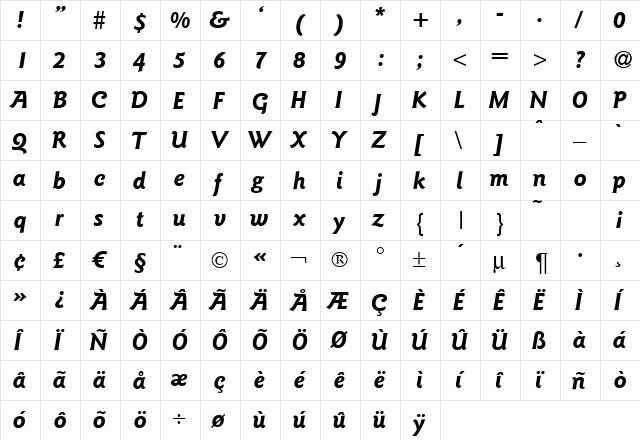
GoudyElegantTwo BoldItalic
Design Context for GoudyElegantTwo Typeface
GoudyElegantTwo is a composed and adaptable typeface that performs quietly and consistently across a wide range of design contexts. The dynamic lean of this cut emphasises speed and emphasis in any layout. Its bold stroke weight gives it real presence on the page.
Pro Tip: Try GoudyElegantTwo for annotation and caption copy alongside an upright companion — the contrast in angle creates a dynamic but ordered typographic system.